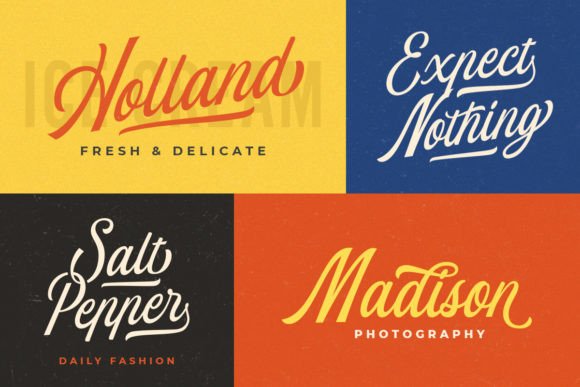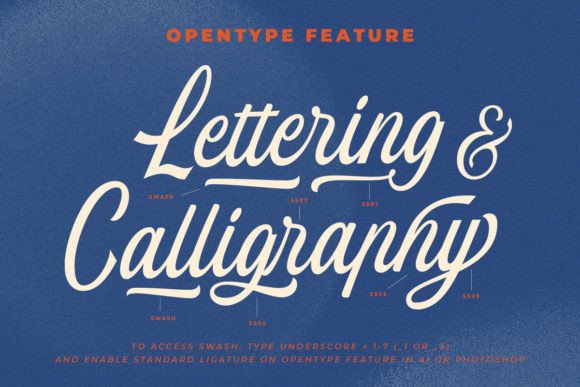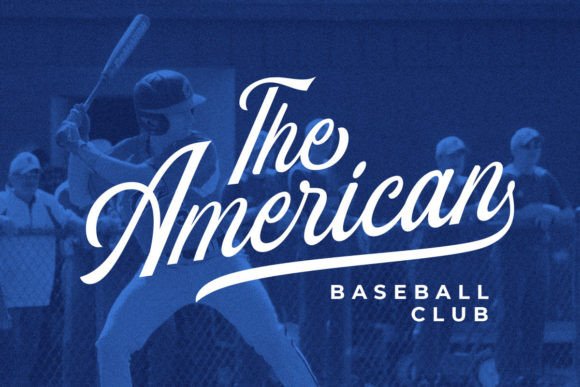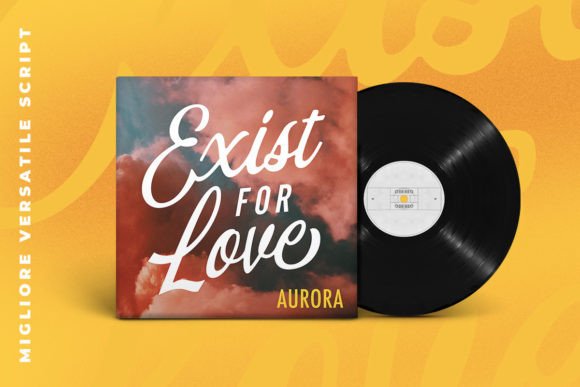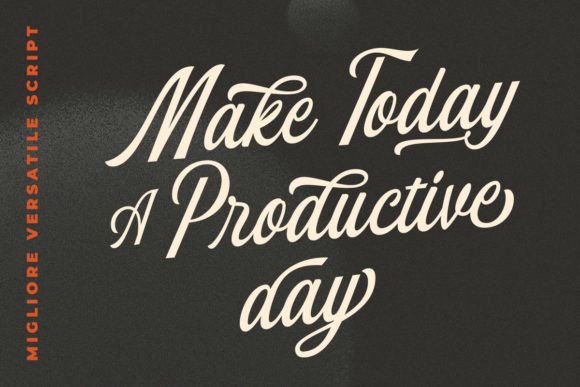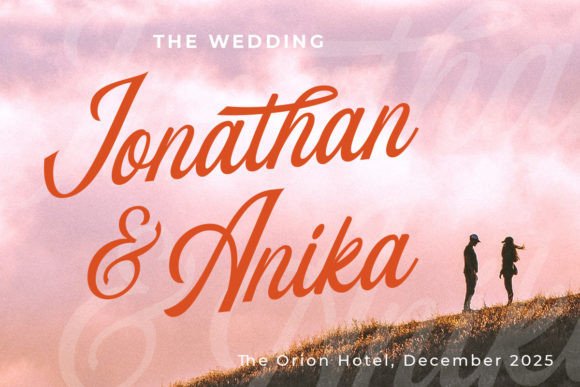
Introduction to Migliore Font
Have you ever been working on a creative project, pouring your heart and soul into it, only to feel like something’s missing? That’s where the perfect font can make all the difference. For me, it was a late-night design session when I stumbled upon the Migliore Font. Its elegant script style instantly elevated my design, giving it a touch of sophistication and class.
As a valuable design resource, the Migliore Font is a game-changer for any creative project. Whether you’re designing a logo, a wedding invitation, or a branding package, this high-quality font is sure to impress. And the best part? It’s available for free download, making it accessible to designers of all levels.
Key Features of Migliore Font
- Designed to provide a clear and readable font, suitable for both digital and print media
- Perfect for designers and artists looking for a unique and stylish font to enhance their work
- Includes a comprehensive character set, supporting multiple languages and scripts
Honest Review: Migliore Font
I recently came across Migliore Font while searching for a high-quality design resource for my creative project. As a designer, I’m always on the lookout for unique and versatile fonts that can elevate my work. Migliore Font definitely delivered.
Here are some aspects that I found particularly impressive:
- ✨ High-quality design: Migliore Font has a clean and sophisticated look that makes it perfect for a wide range of creative projects.
- ⚠️ Limited character set: While Migliore Font has a wide range of glyphs, it may not be suitable for projects that require a large character set.
- ⚠️ Limited font sizes: Migliore Font may not be ideal for large-scale typography, as it can become difficult to read at very large font sizes.
Overall, I’m impressed with Migliore Font and would definitely recommend it to fellow designers. While it may have some limitations, its unique design and high-quality features make it a valuable addition to any design resource library.
Migliore Font: A Comprehensive Guide
Migliore Font is a high-quality design resource that offers a free download of a premium font. This versatile font is perfect for any creative project that requires a touch of sophistication and elegance.
Tips for Getting the Most Out of Migliore Font
- Experiment with different font sizes and styles to add visual interest to your designs.
- Combine Migliore Font with other high-quality design resources to create truly unique and eye-catching designs.
Migliore Font is perfect for any creative project that requires a touch of sophistication and elegance, including:
- Graphics and social media graphics
Alternatives to Migliore Font
Compared to Migliore Font, Montserrat has a more geometric and industrial feel, making it ideal for designs that require a strong, urban aesthetic. While Migliore Font has a more elegant and refined look, Montserrat’s bold and modern design makes it a great choice for creative projects that need a bit more edge.